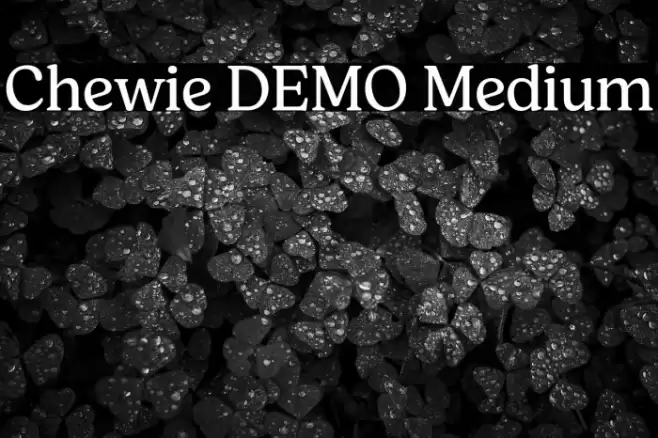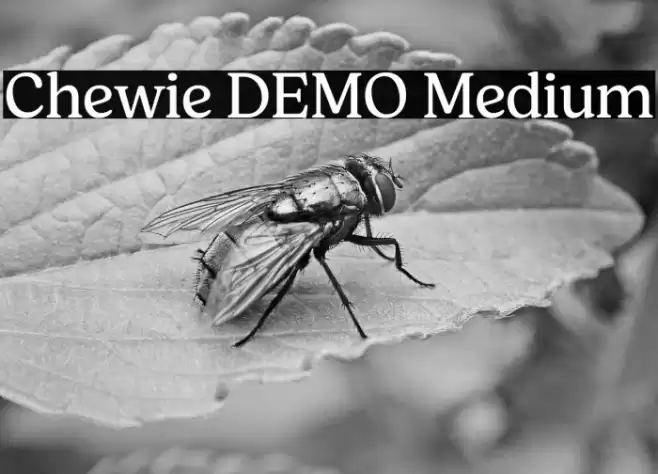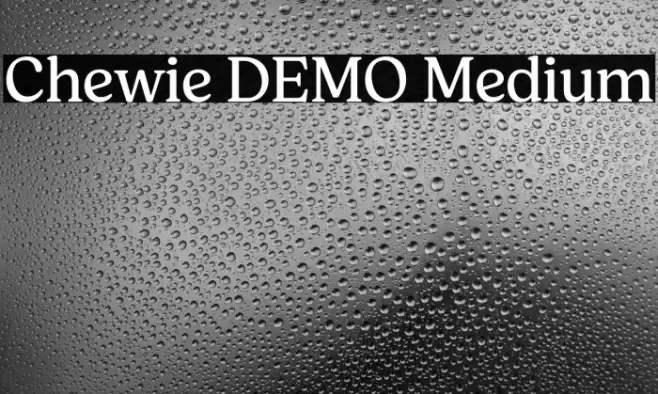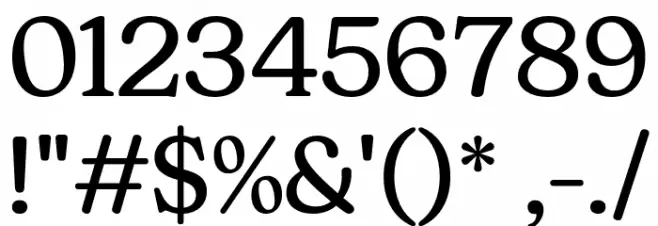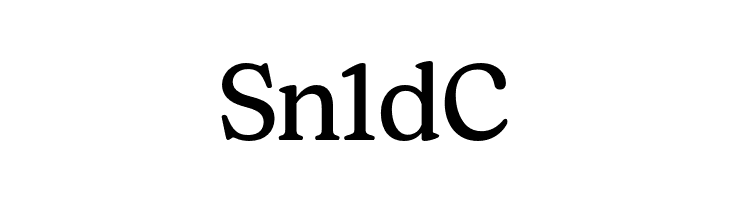
Chewie DEMO Medium Font
Chewie DEMO Medium Description
This font features a classic serif style with a modern twist, characterized by its elegant and refined letterforms. The uppercase letters are bold and commanding, while the lowercase letters maintain a graceful and approachable appearance. The numerals are clear and distinct, ensuring readability. Special characters are well-integrated, maintaining the overall aesthetic. The font's balanced proportions and moderate contrast in stroke thickness make it versatile for various design applications.
A modern serif font with elegant and refined letterforms from Regular fonts.